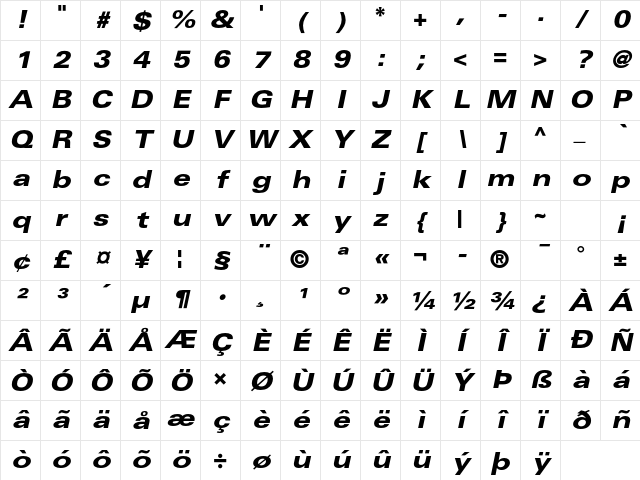
Complete Univers LT W0573 Bold Italic glyph index. Displaying only characters natively supported by Univers LT W0573 Bold Italic font.
Univers LT W0573 is a composed and adaptable typeface that performs quietly and consistently across a wide range of design contexts. The slanted form adds forward momentum and visual energy. Its bold stroke weight gives it real presence on the page.
Pro Tip: Use Univers LT W0573 for emphasis, pull quotes, and subheadings where its slanted energy can add rhythm to the layout.